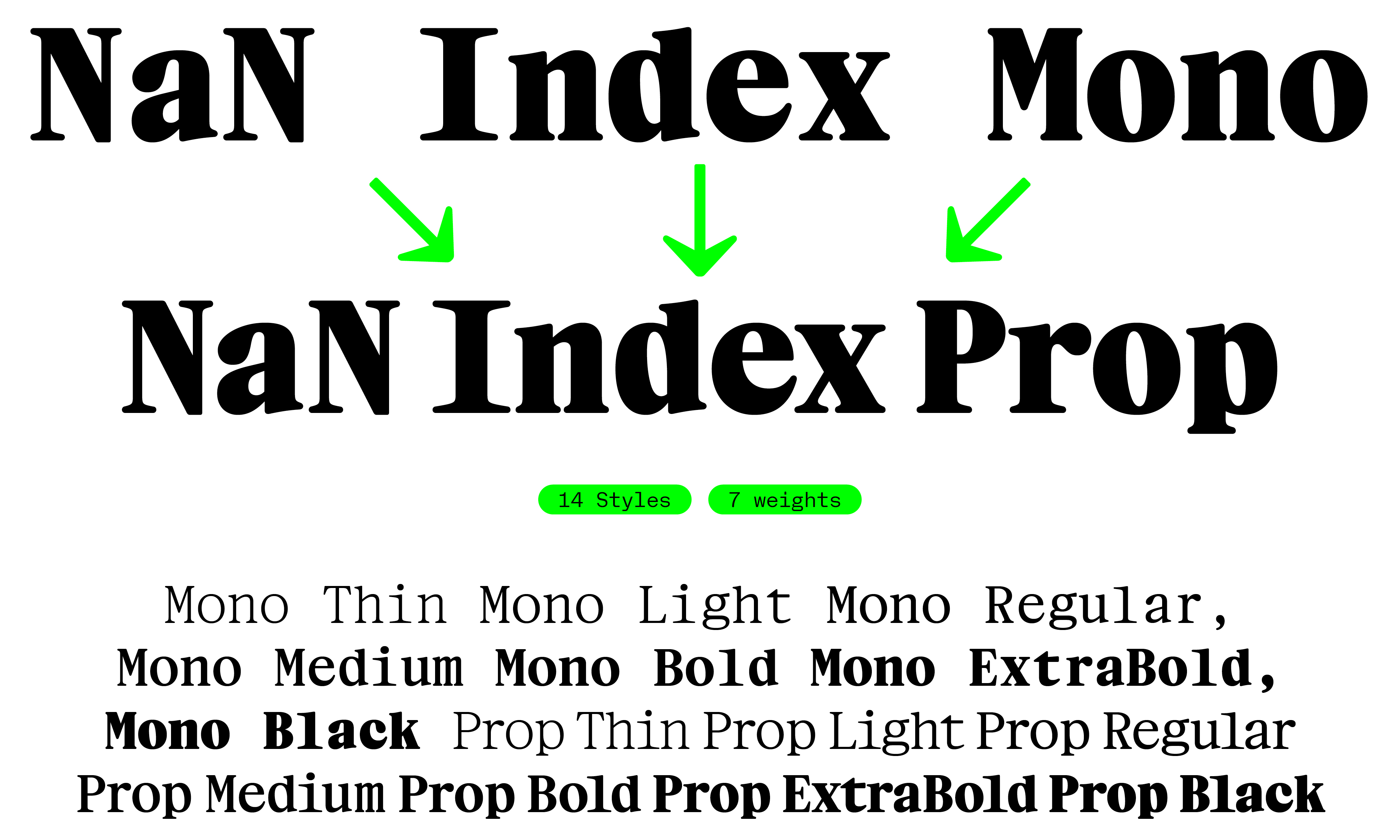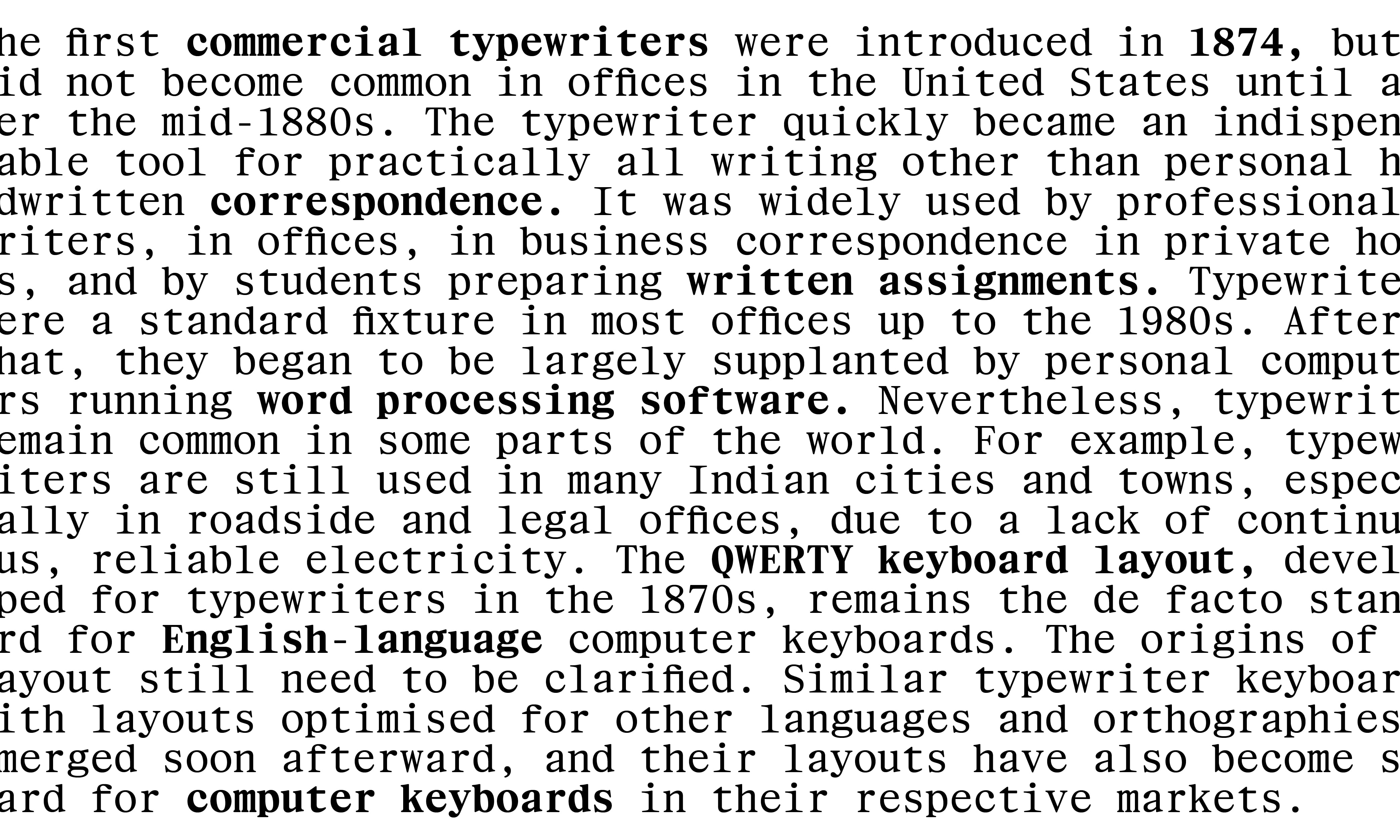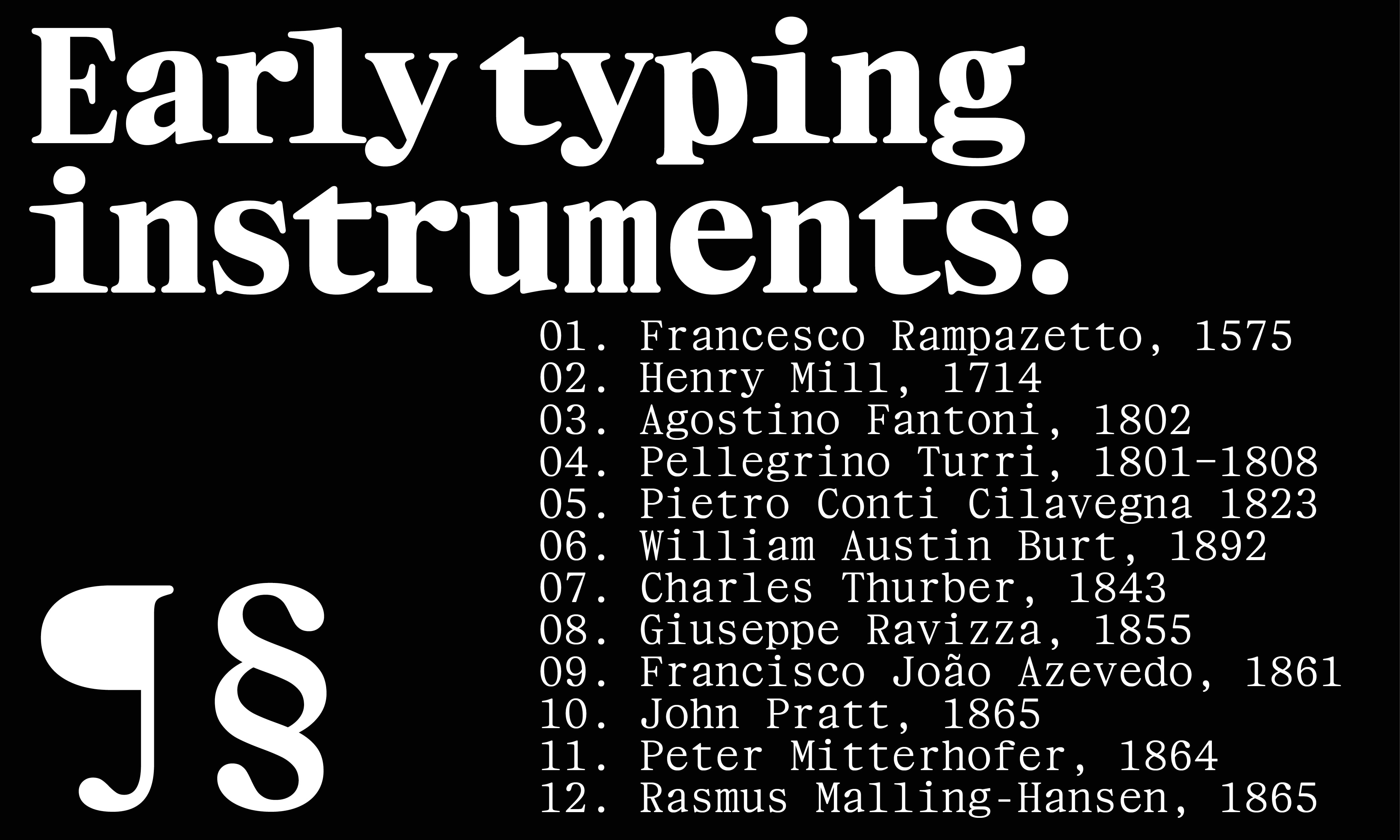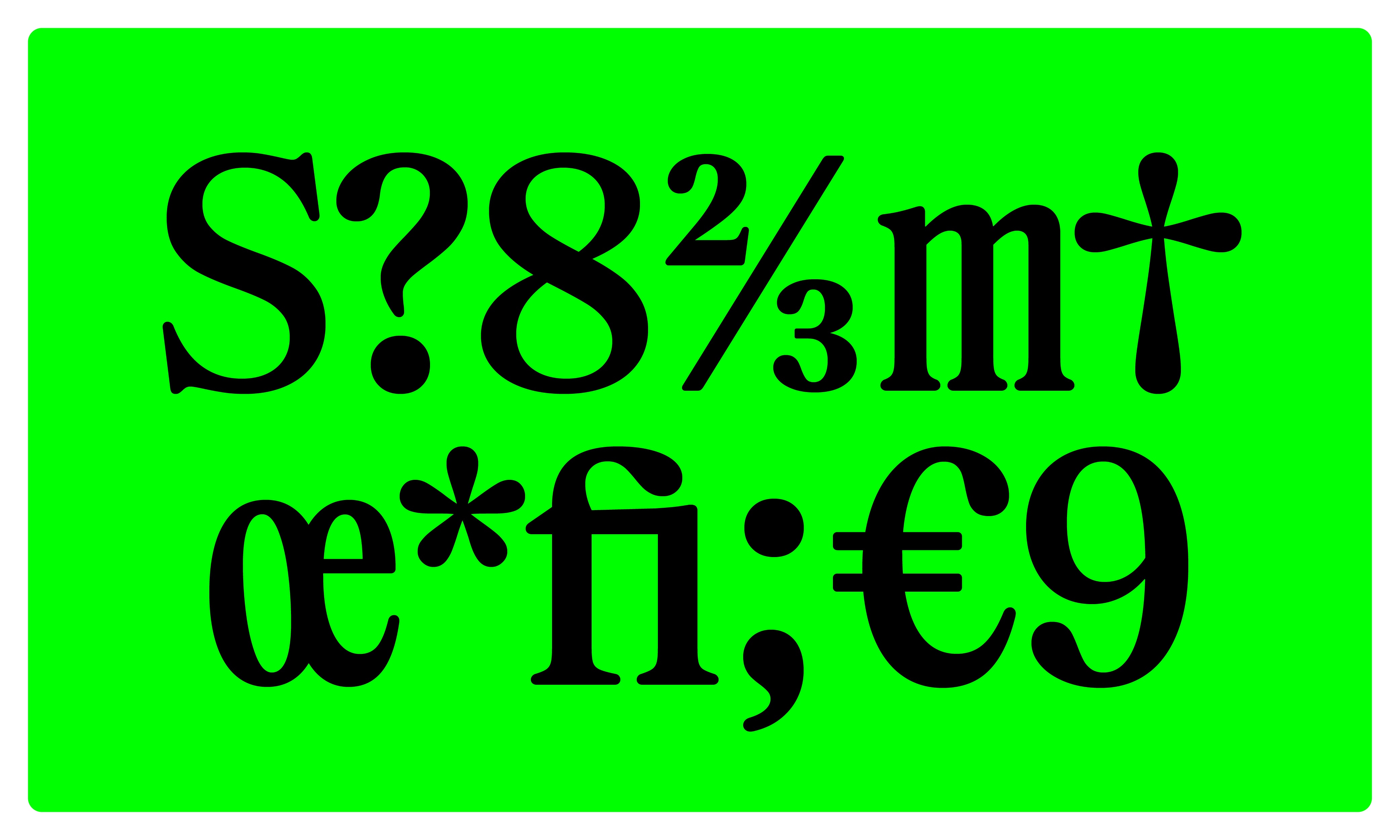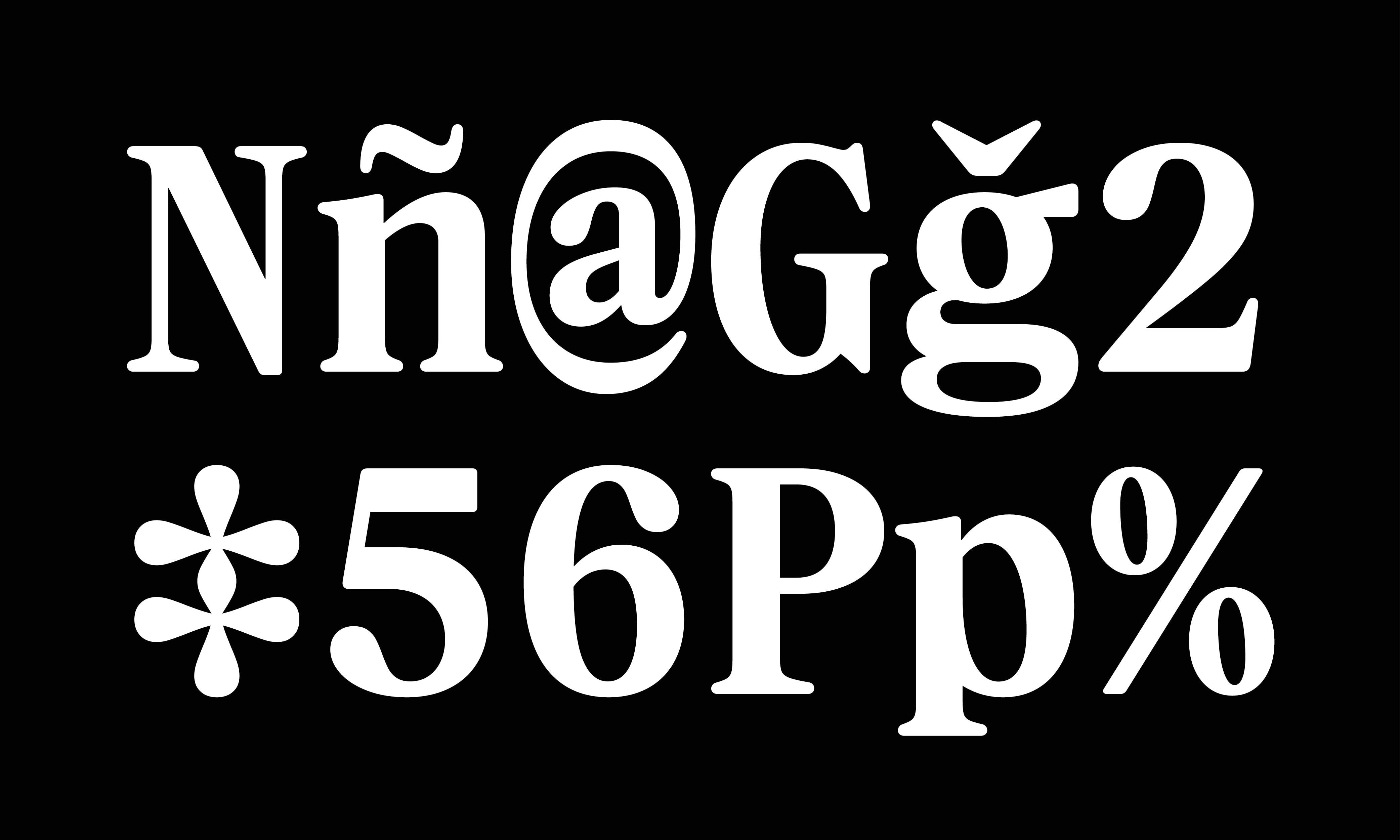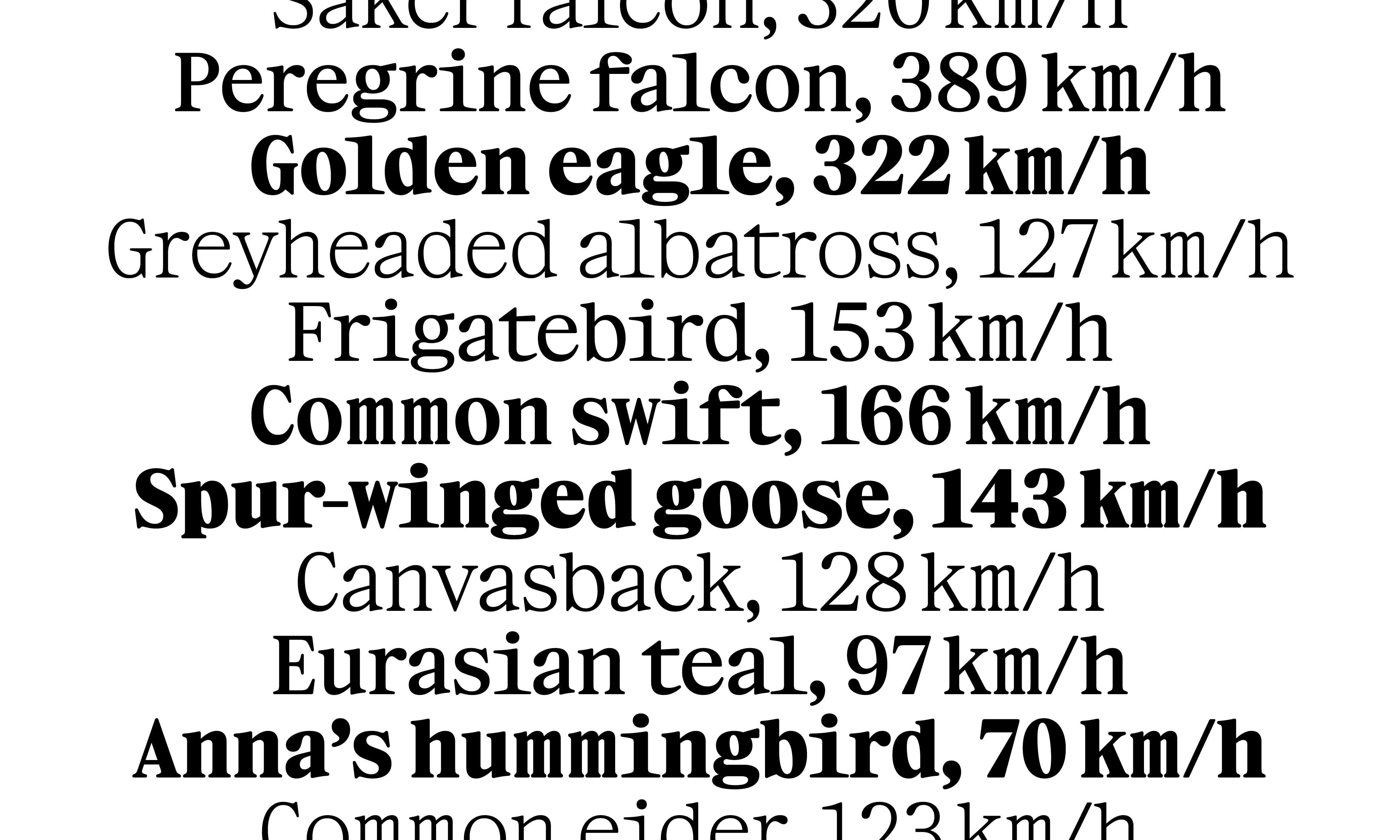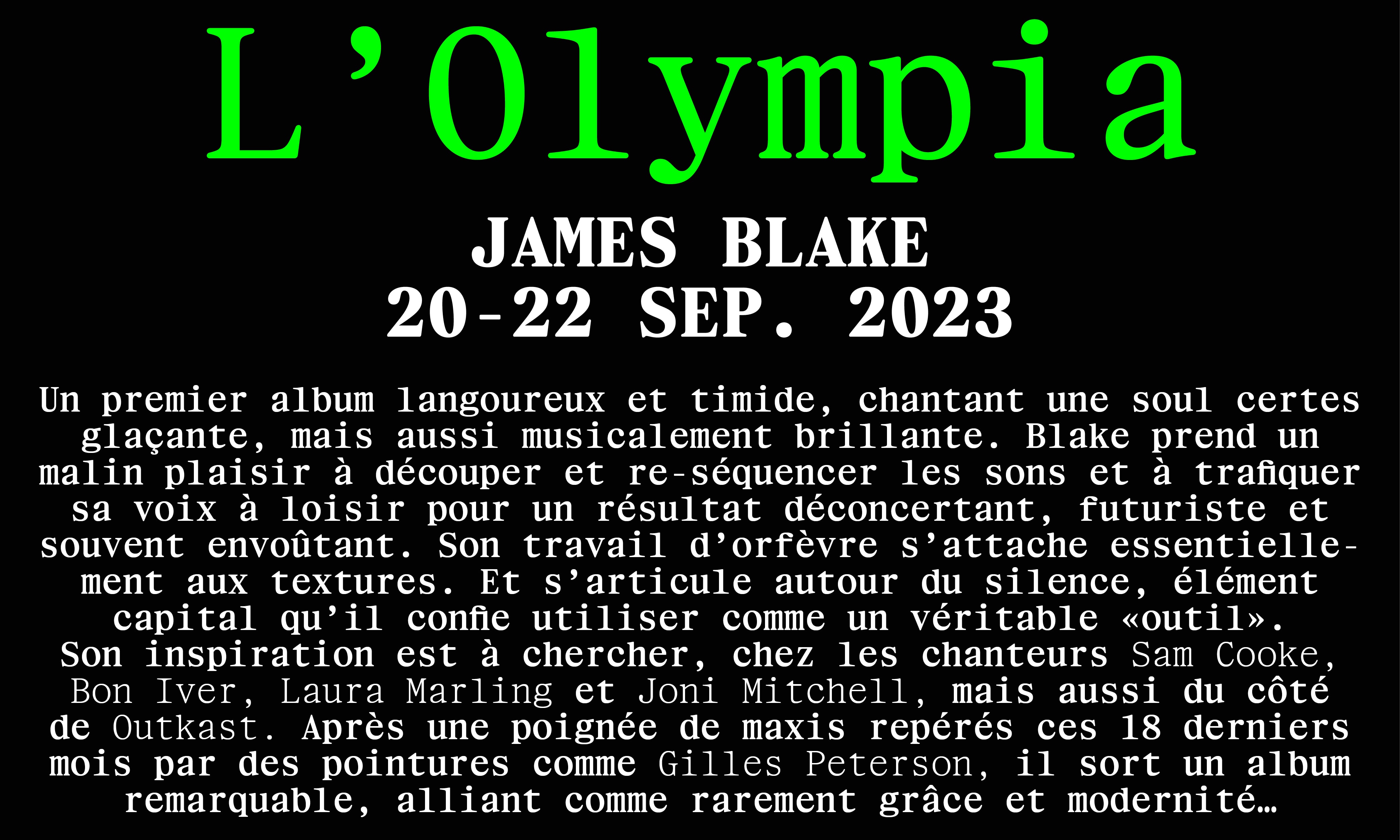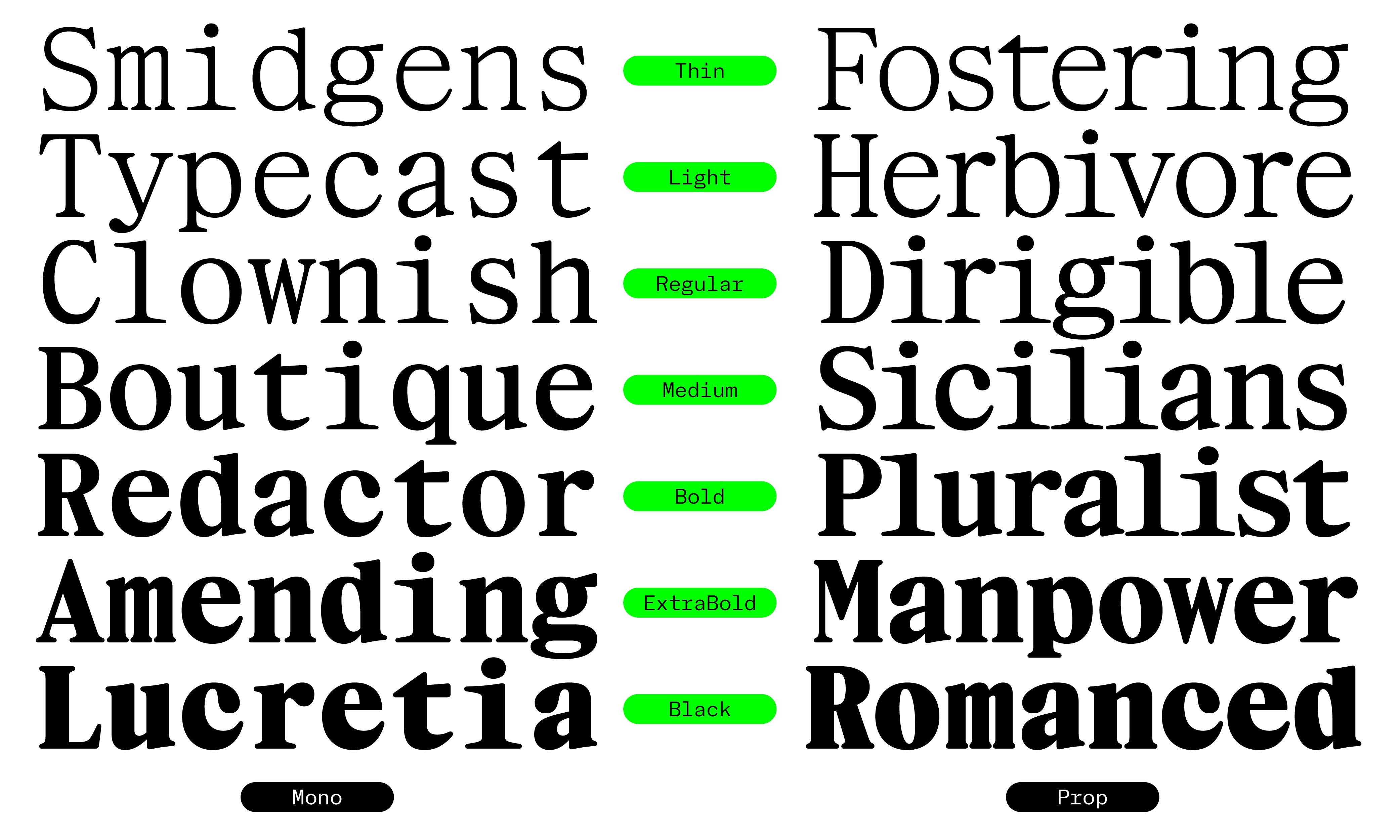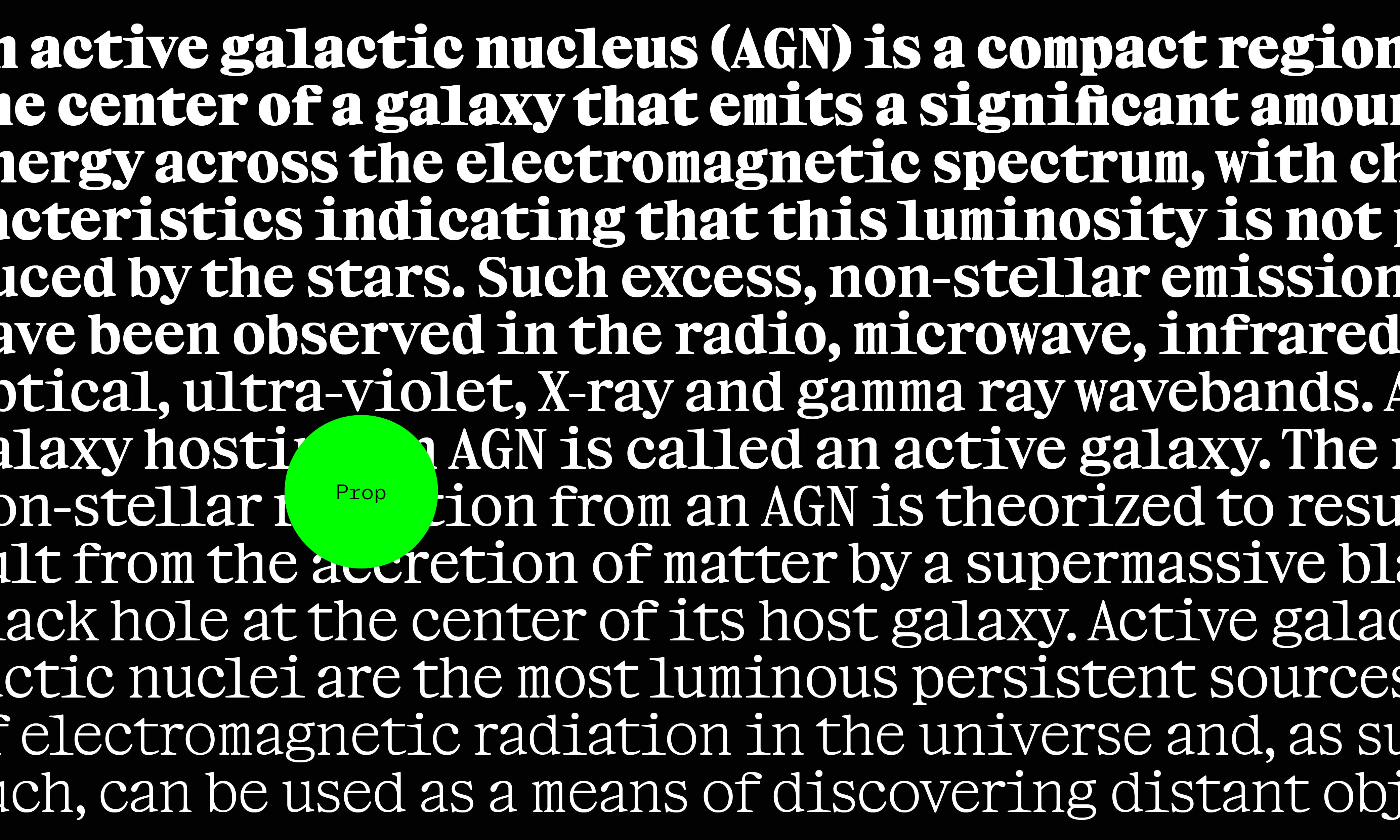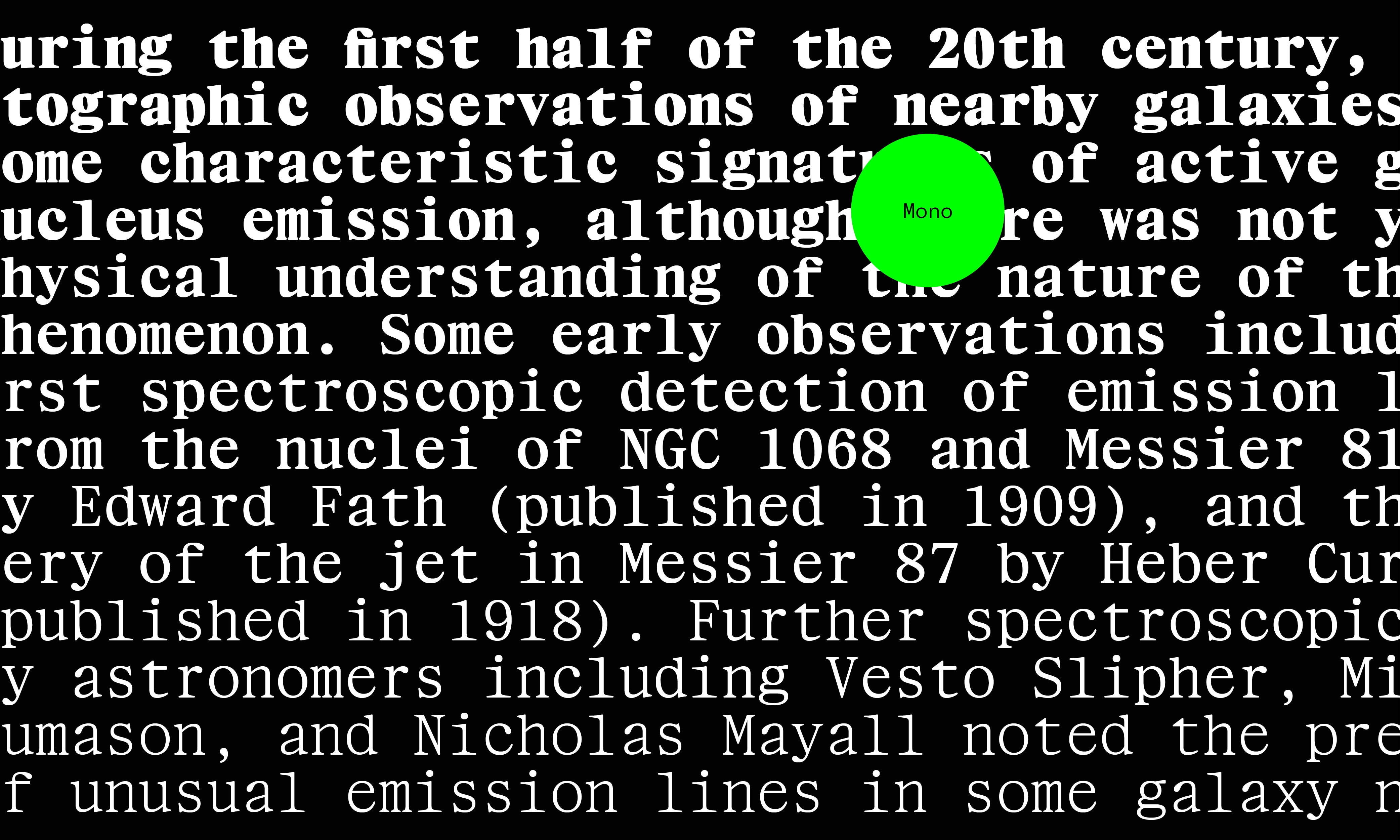
About NaN Index
NaN Index, a soft proportional + monospace family, utilitarian yet elegant.
Typeface: NaN Index
Designed by NaN
NaN Team: Hugues Gentile, Fanny Hamelin, Fadhl Haqq, Léon Hugues, Jean-Baptiste Morizot, Luke Prowse
Additional Engineering: Igino Marini
Year: 2025-2026
Languages: Supporting 324 Latin-based languages